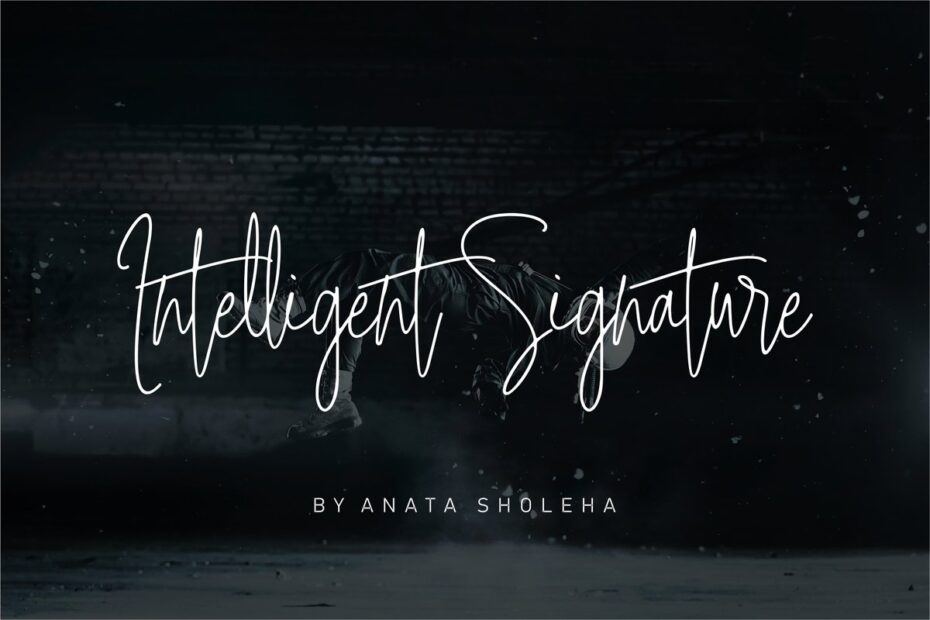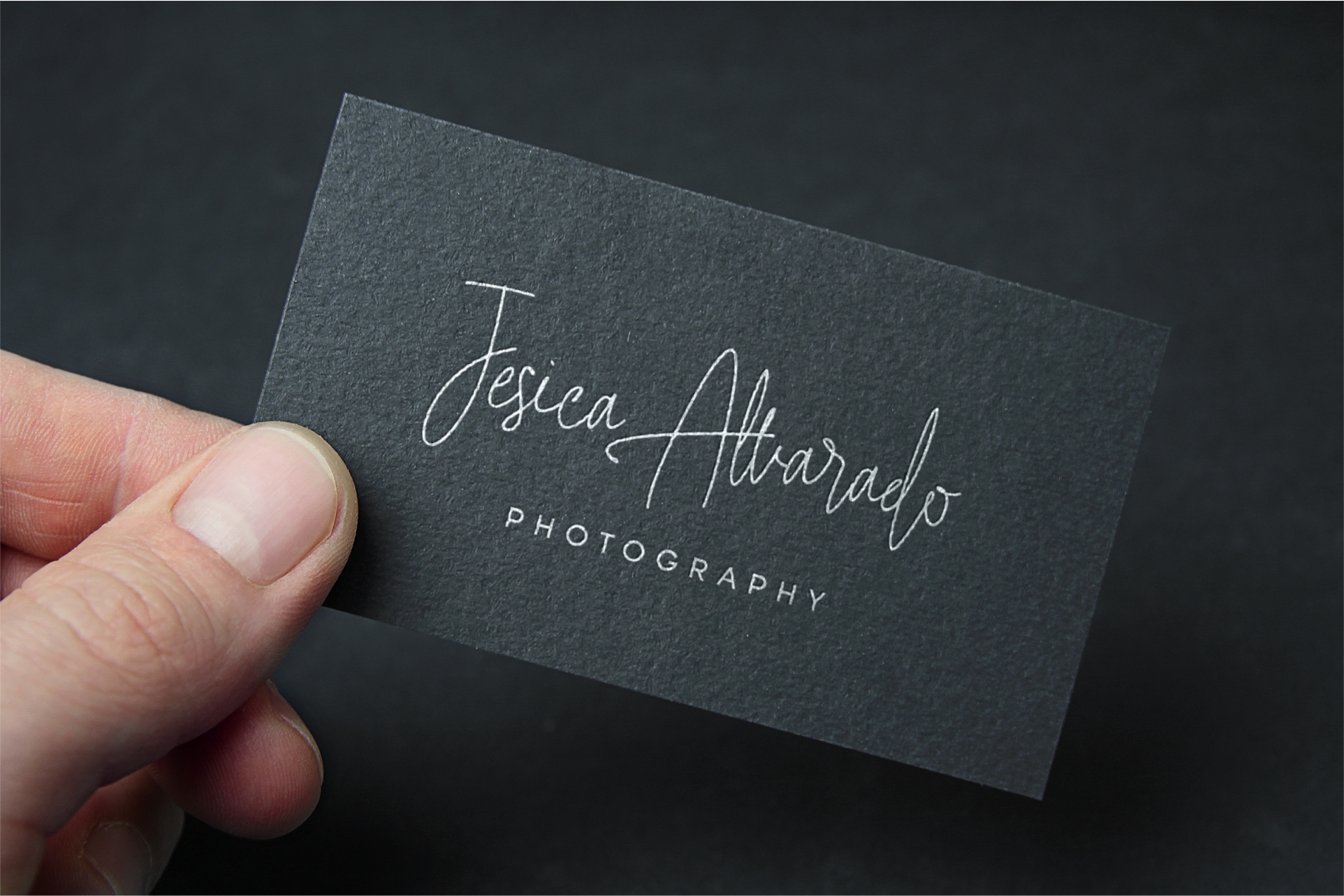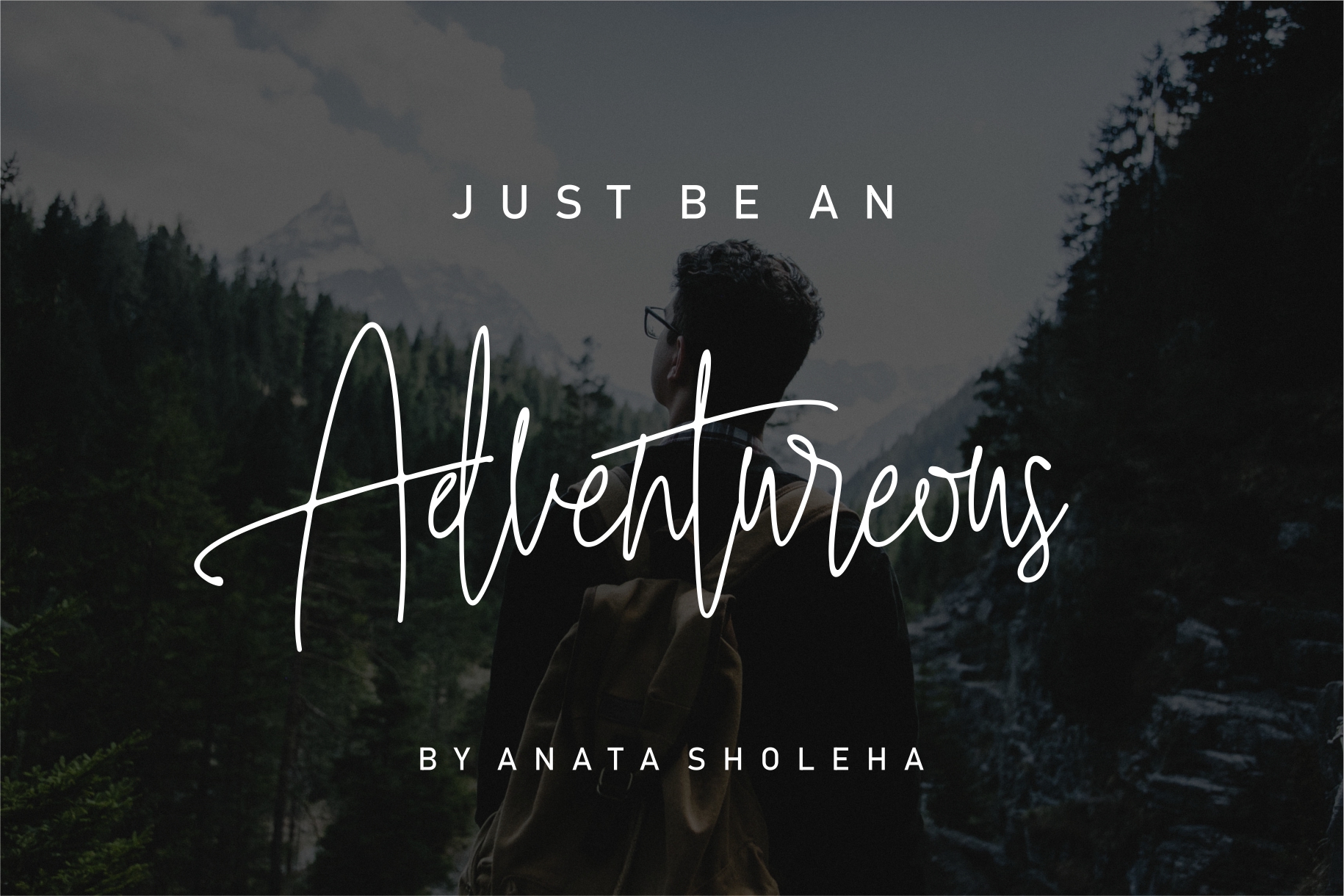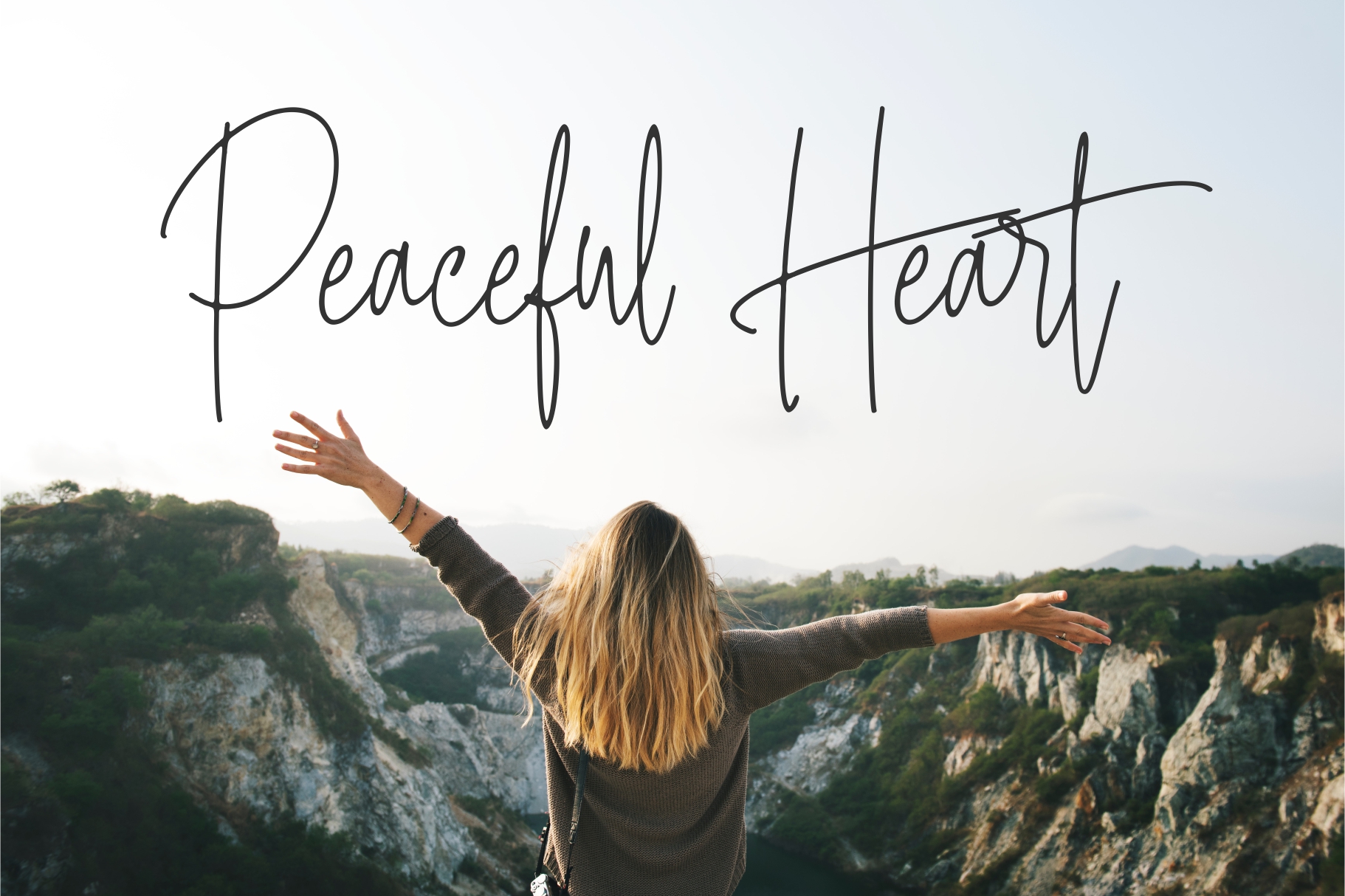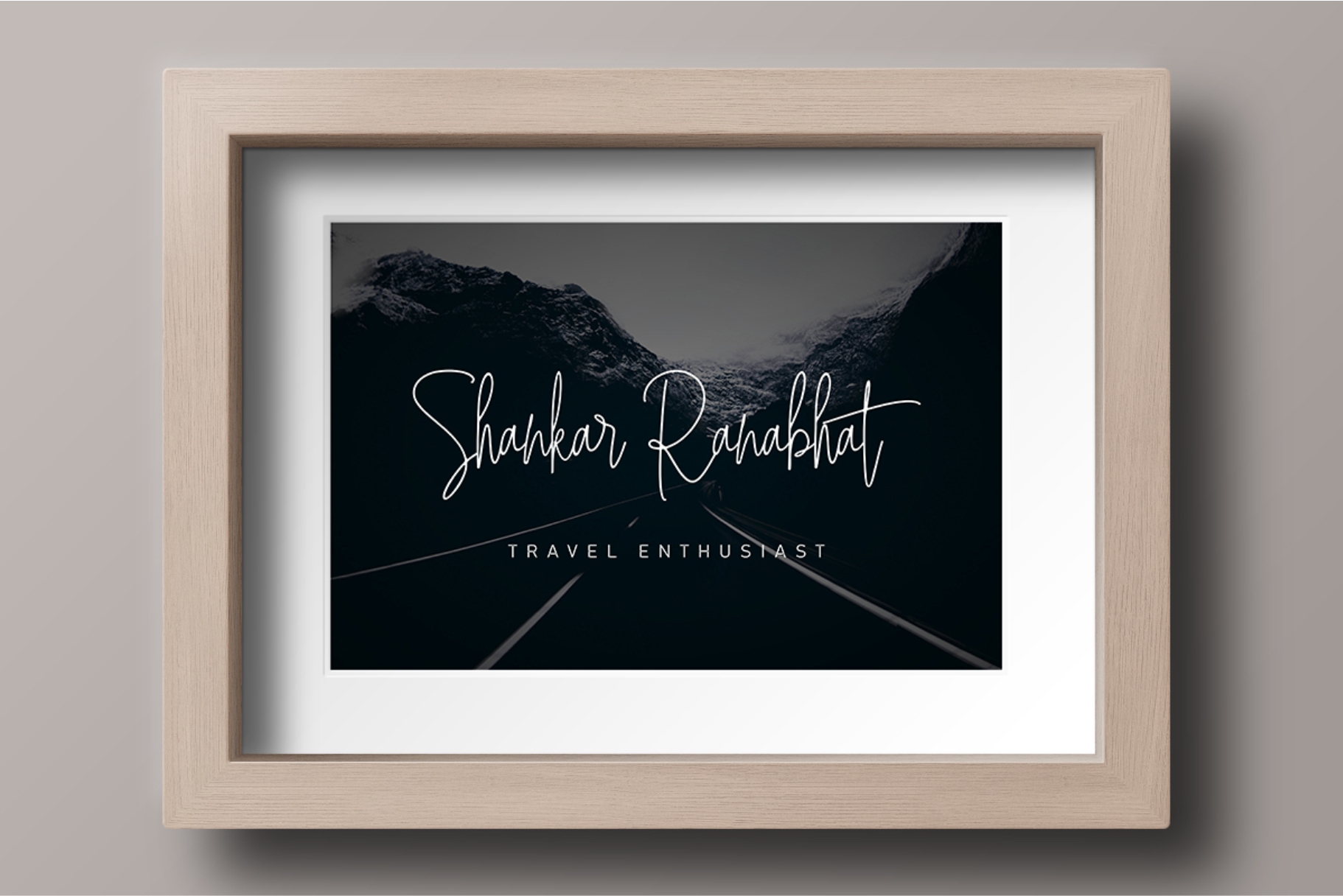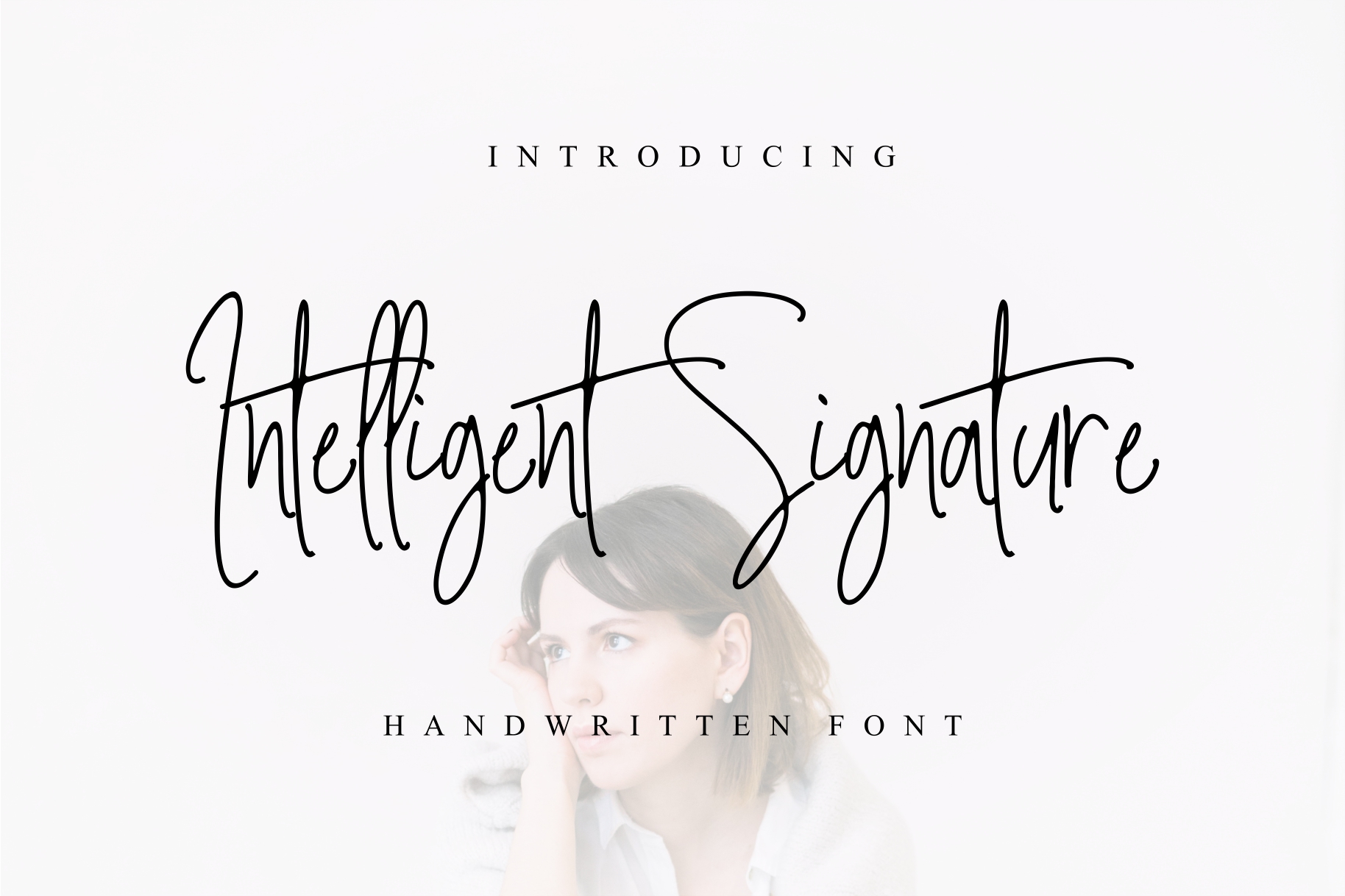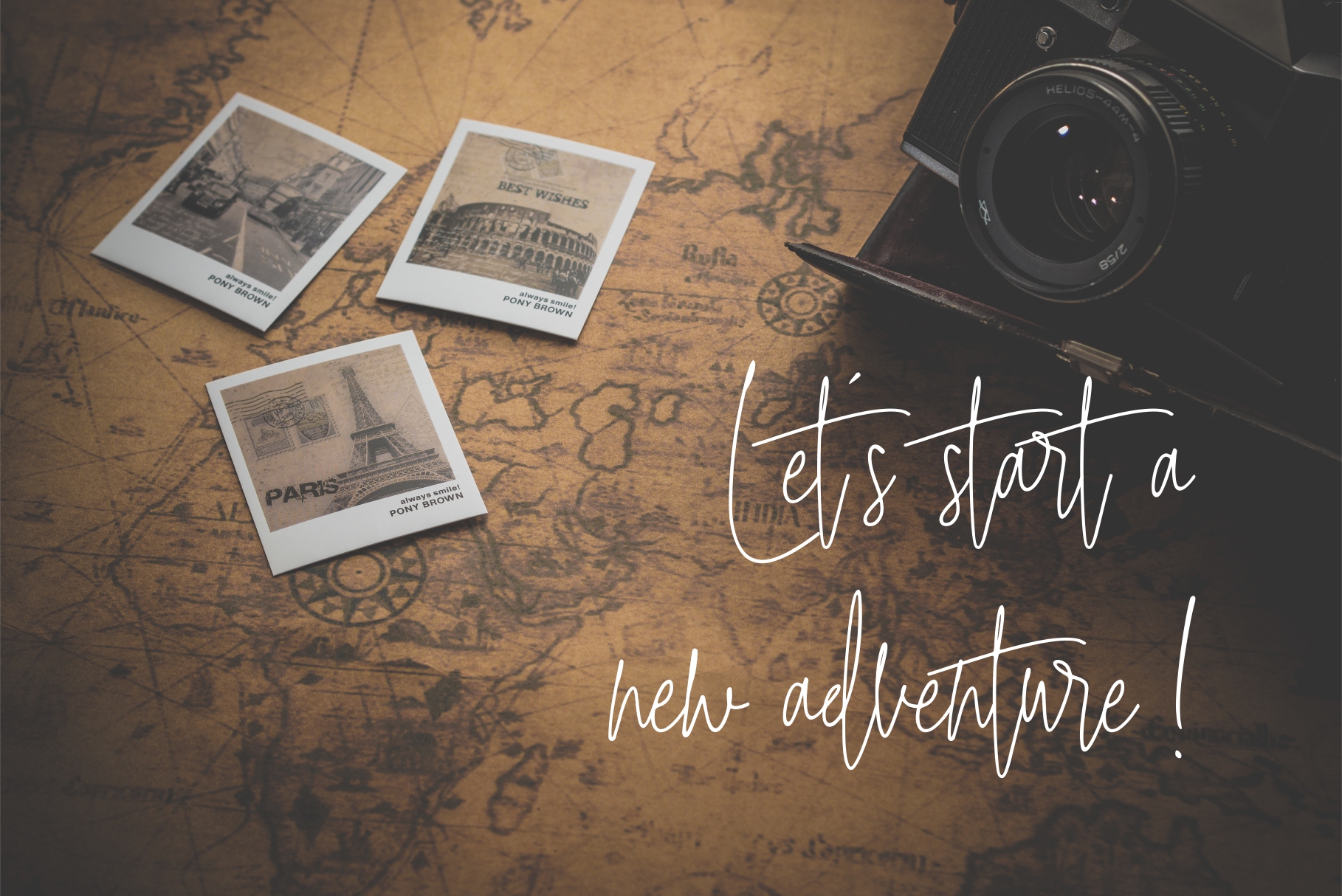
Unleashing the Art of Handwritten Typography
Have you ever sat down with a pen and paper, feeling the urge to create something beautiful? For designers, the moment of inspiration often begins with a single stroke of the pen. It’s the way a handwritten signature flows onto a page, full of character and personality. But what if you could capture that essence in a digital format, perfect for use in your next design project?
Intelligent Signature Font is here to make that possible. With over 100 ligatures, this stunning font was crafted to mimic the look and feel of handwritten typography. Whether you’re working on a luxurious brand identity or a contemporary design project, Intelligent Signature Font is the perfect addition to your toolkit. Its unique blend of elegance and sophistication makes it a valuable asset for designers looking to add a personal touch to their work.
Key Features of “Intelligent Signature Font”
- Unique Characteristics: Features a unique, hand-crafted design with subtle nuances and flourishes, giving it a personalized and authentic feel.
Designer Review: Intelligent Signature Font
Overall, I’d say the Intelligent Signature Font has some nice touches, but it’s not without its limitations. Let’s break it down.
- Unique blend of elegance and modernity: The font successfully combines classic touches with modern flair, making it perfect for creative professionals looking for a statement font.
- Excellent legibility: Even at smaller sizes, the font remains clear and easy to read, which is crucial for any font intended for use in formal settings.
- Good support for various languages: The font includes a wide range of languages, making it a great choice for global brands or companies that cater to diverse audiences.
- Some letterforms feel too rounded: While the font’s overall aesthetic is great, some of the letterforms, particularly the ‘g’ and ‘s’, feel a bit too rounded, which can make them harder to read in certain contexts.
- Lack of bold weights: The font only includes regular and italic weights, which might limit its use in certain situations where a bold or extra bold weight would be more effective.
Overall, the Intelligent Signature Font is a solid choice for anyone looking for a stylish and legible font for formal applications. However, it’s not perfect, and some users might find its limitations a bit restrictive.
Use the Intelligent Signature Font to create professional-looking signatures for:
- Business cards and letterheads.
- Signatures for documents and contracts.
- Personalized stationery and gift tags.
Experiment with different font styles and colors to create a unique and recognizable signature.
Alternatives to “Intelligent Signature Font” for Designers
Great Vibes is a modern, elegant script font designed for formal and informal use. It’s ideal for creating a professional look on business cards, wedding invitations, and other formal documents. Great Vibes is more versatile and offers a wider range of styles compared to Intelligent Signature Font, making it suitable for a broader range of design projects.
Lobster is a fun, casual script font that’s perfect for creating a playful and creative atmosphere. It’s great for use on social media, advertisements, and promotional materials. Unlike Intelligent Signature Font, Lobster has a more relaxed feel and is not as formal, making it ideal for projects that require a lighthearted tone.